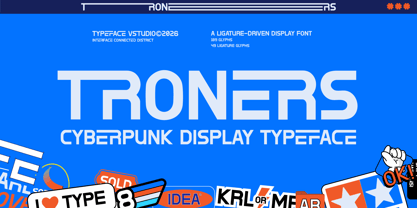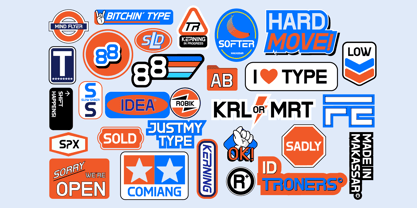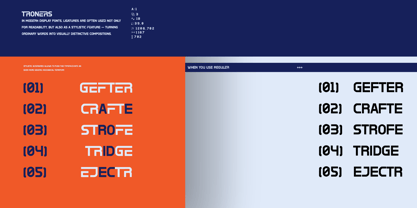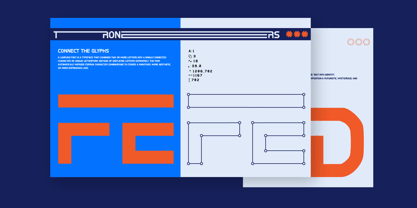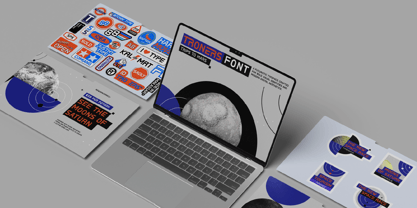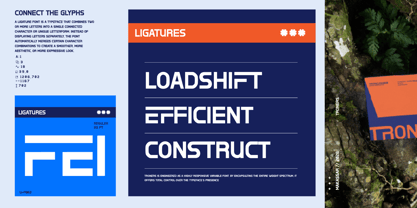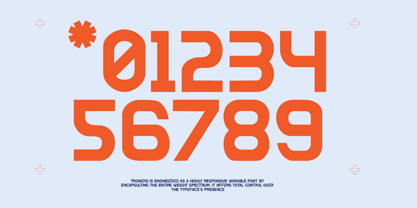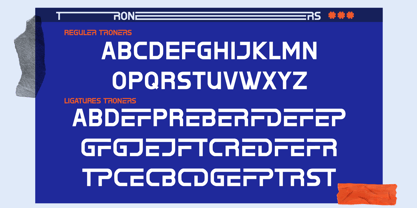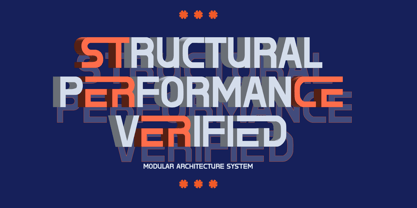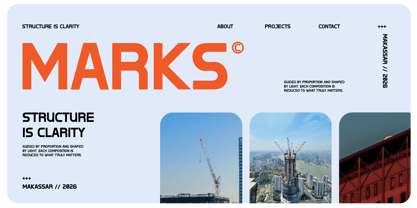
ID Troners
La familia tipográfica ID Troners fue diseñada por Khairil Anwar y publicada por ID Typeface. ID Troners contiene 1 estilos. Más información sobre esta familia
ID Troners is a cutting-edge display typeface that draws inspiration from cyberpunk aesthetics and contemporary digital interfaces. Featuring sharp geometry, elongated letterforms, and distinctive ligature details, this typeface offers a striking visual presence ideal for applications in gaming, technology, posters, branding, and sci-fi-themed designs. Engineered to make an impact, ID Troners provides a robust futuristic identity characterized by its clean and powerful forms, making it a perfect choice for modern creative projects.